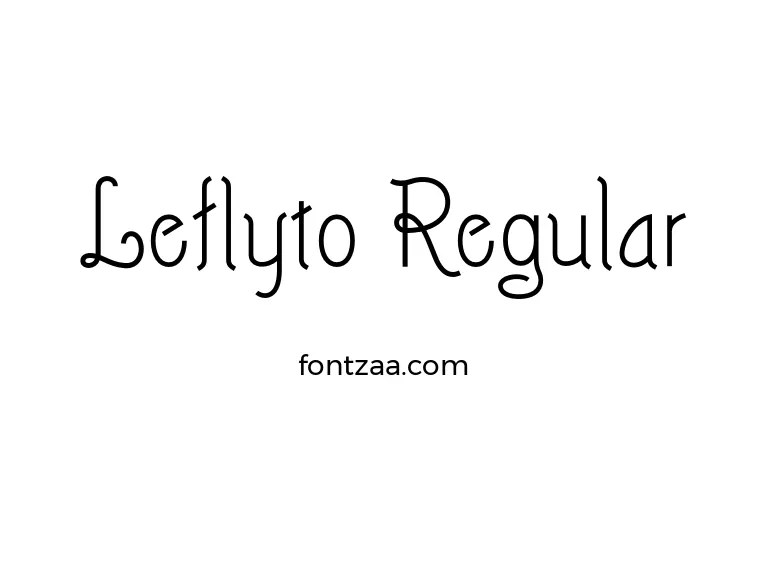
Leflyto Regular Font offers expressive lettering for designers looking for a elegant visual direction. With its distinctive letterforms, Leflyto Regular Font can introduce a elegant character into creative display work. Its letter shapes become especially noticeable at larger sizes, where spacing and proportions can be explored more clearly. The typeface can change considerably depending on tracking, scale, alignment, background and surrounding imagery. Testing several arrangements before choosing the final version can reveal which characteristics of the typeface work best. Creative uses may range from invitations, wedding stationery, signatures, quotes and elegant branding, with different results depending on scale and layout. Print and digital layouts may require different sizing and spacing, so testing the actual output dimensions is recommended. Keeping secondary typography simple often allows the distinctive qualities of the main font to remain more visible. According to the available font information, the typeface is associated with Sakatomi Design. Current license information is shown as Free for personal use; checking the original documentation is recommended before client or commercial work. Testing the font with the actual project text can provide a much better impression than viewing isolated sample characters.
Leflyto Regular Font brings a elegant personality to typography and gives designers a flexible starting point for headlines, branding and promotional layouts. Its letter shapes become especially noticeable at larger sizes, where spacing and proportions can be explored more clearly. Using generous space around the lettering can help the details of the typeface remain visible instead of competing with other elements. Testing several arrangements before choosing the final version can reveal which characteristics of the typeface work best. Creative uses may range from invitations, wedding stationery, signatures, quotes and elegant branding, with different results depending on scale and layout. Print and digital layouts may require different sizing and spacing, so testing the actual output dimensions is recommended. Previewing the final layout on both large and small screens helps identify spacing and readability problems early. The available source information lists Sakatomi Design as the designer or publisher. License details are currently listed as Free for personal use. Users should verify the supplied documentation before using the font in products or paid projects. The most effective treatment will vary by project, so designers should compare several versions before finalizing the artwork.
Leflyto Regular Font stands out through its individual shapes and can become an important visual element in digital and print projects. Using generous space around the lettering can help the details of the typeface remain visible instead of competing with other elements. Its letter shapes become especially noticeable at larger sizes, where spacing and proportions can be explored more clearly. Different color combinations can make the same font feel subtle, energetic, premium or highly decorative. Possible applications include invitations, wedding stationery, signatures, quotes and elegant branding. Designers should evaluate the typeface inside the real project because a standalone preview cannot show every possible visual combination. Keeping secondary typography simple often allows the distinctive qualities of the main font to remain more visible. Source metadata currently associates the font with Sakatomi Design. Current license information is shown as Free for personal use; checking the original documentation is recommended before client or commercial work. Testing the font with the actual project text can provide a much better impression than viewing isolated sample characters.
Leflyto Regular Font Family
Within the Leflyto Regular Font Family, even a single available style can produce many different visual treatments through scale, tracking and layout choices. Leflyto Regular Font brings a elegant personality to typography and gives designers a flexible starting point for font-family exploration. The font can work as the primary visual element in a minimal layout or as part of a more detailed composition. Testing several arrangements before choosing the final version can reveal which characteristics of the typeface work best. Different color combinations can make the same font feel subtle, energetic, premium or highly decorative. Designers may explore it across invitations, wedding stationery, signatures, quotes and elegant branding, depending on the tone and requirements of the project. Print and digital layouts may require different sizing and spacing, so testing the actual output dimensions is recommended. Designers should evaluate the typeface inside the real project because a standalone preview cannot show every possible visual combination. Source metadata currently associates the font with Sakatomi Design. The available licensing label is Free for personal use, but redistribution and commercial permissions should always be confirmed from the original source. A few quick layout variations can help determine where the font creates the strongest visual result.
| Designer | Sakatomi Design |
For projects that need typography with a stronger identity, Leflyto Regular Font offers a elegant direction suited to discovering alternatives and related typography. Testing several arrangements before choosing the final version can reveal which characteristics of the typeface work best. Using generous space around the lettering can help the details of the typeface remain visible instead of competing with other elements. The font can work as the primary visual element in a minimal layout or as part of a more detailed composition. Creative uses may range from invitations, wedding stationery, signatures, quotes and elegant branding, with different results depending on scale and layout. Print and digital layouts may require different sizing and spacing, so testing the actual output dimensions is recommended. For layouts containing longer information, pairing it with a simpler supporting typeface can improve readability and hierarchy. According to the available font information, the typeface is associated with Sakatomi Design. License details are currently listed as Free for personal use. Users should verify the supplied documentation before using the font in products or paid projects. Its final appearance will depend heavily on the surrounding colors, imagery, spacing and supporting typography. Explore more typography on Fontzaa or browse the 100% Free Fonts collection.
Best Uses for Leflyto Regular Font
With its distinctive letterforms, Leflyto Regular Font can introduce a elegant character into practical ways designers can use the typeface. Its letter shapes become especially noticeable at larger sizes, where spacing and proportions can be explored more clearly. The font can work as the primary visual element in a minimal layout or as part of a more detailed composition. Using generous space around the lettering can help the details of the typeface remain visible instead of competing with other elements. Possible applications include invitations, wedding stationery, signatures, quotes and elegant branding. Designers should evaluate the typeface inside the real project because a standalone preview cannot show every possible visual combination. A clean serif or sans serif companion can handle smaller text while this font remains focused on headlines and key messages. The available source information lists Sakatomi Design as the designer or publisher. Current license information is shown as Free for personal use; checking the original documentation is recommended before client or commercial work. Experimenting directly in the intended design is usually the best way to judge whether the typeface suits the project.
Using Leflyto Regular Font for Posters and Social Media
Designers exploring a elegant typeface can use Leflyto Regular Font to add a more recognizable visual voice to posters, campaigns, thumbnails and promotional content. The font can work as the primary visual element in a minimal layout or as part of a more detailed composition. Different color combinations can make the same font feel subtle, energetic, premium or highly decorative. Testing several arrangements before choosing the final version can reveal which characteristics of the typeface work best. Possible applications include invitations, wedding stationery, signatures, quotes and elegant branding. Print and digital layouts may require different sizing and spacing, so testing the actual output dimensions is recommended. A clean serif or sans serif companion can handle smaller text while this font remains focused on headlines and key messages. Source metadata currently associates the font with Sakatomi Design. Current license information is shown as Free for personal use; checking the original documentation is recommended before client or commercial work. A few quick layout variations can help determine where the font creates the strongest visual result.
Design Ideas for Leflyto Regular Font
Leflyto Regular Font stands out through its individual shapes and can become an important visual element in different creative applications for the font. Its letter shapes become especially noticeable at larger sizes, where spacing and proportions can be explored more clearly. Testing several arrangements before choosing the final version can reveal which characteristics of the typeface work best. Using generous space around the lettering can help the details of the typeface remain visible instead of competing with other elements. Its display-focused appearance makes it worth testing in invitations, wedding stationery, signatures, quotes and elegant branding. Keeping secondary typography simple often allows the distinctive qualities of the main font to remain more visible. A clean serif or sans serif companion can handle smaller text while this font remains focused on headlines and key messages. Source metadata currently associates the font with Sakatomi Design. Current license information is shown as Free for personal use; checking the original documentation is recommended before client or commercial work. A few quick layout variations can help determine where the font creates the strongest visual result.
Branding Ideas With Leflyto Regular Font
With its distinctive letterforms, Leflyto Regular Font can introduce a elegant character into logos, wordmarks and visual identity systems. Its letter shapes become especially noticeable at larger sizes, where spacing and proportions can be explored more clearly. Testing several arrangements before choosing the final version can reveal which characteristics of the typeface work best. The typeface can change considerably depending on tracking, scale, alignment, background and surrounding imagery. Designers may explore it across invitations, wedding stationery, signatures, quotes and elegant branding, depending on the tone and requirements of the project. Previewing the final layout on both large and small screens helps identify spacing and readability problems early. Print and digital layouts may require different sizing and spacing, so testing the actual output dimensions is recommended. The available source information lists Sakatomi Design as the designer or publisher. The listed license is Free for personal use, although users should still review the original font package before commercial use. Testing the font with the actual project text can provide a much better impression than viewing isolated sample characters.